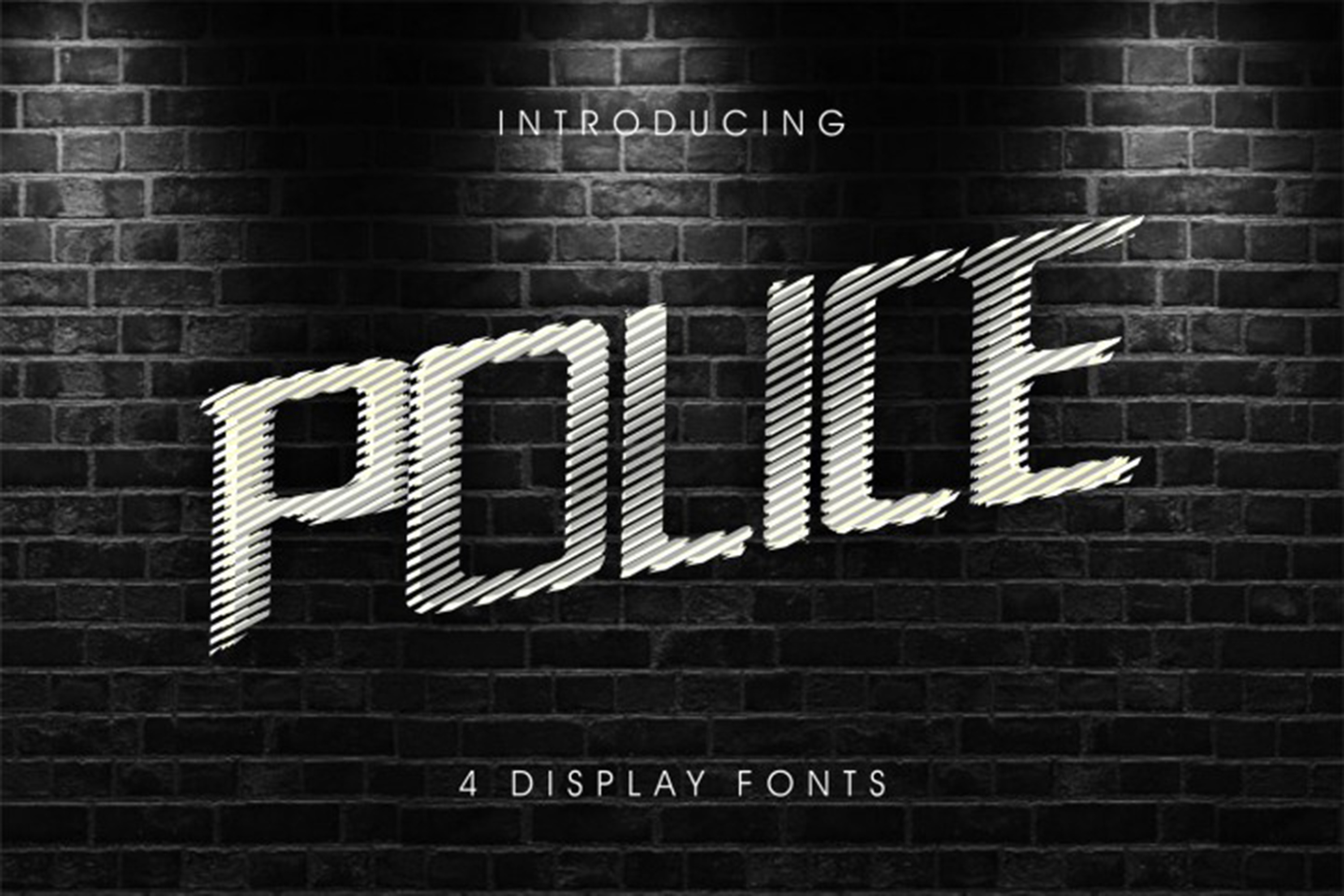
PoliceLineDoNotCross 4 display fonts
PoliceLineDoNotCross
PoliceLineDoNotCross is a delicate font with striped design and possibility to be incorporated into a many variation of use. Smooth and striped body of letters are creating a nice looking visual attractiveness. Created by our professional team of designers this font is applicable in any occasions of your digital art work or text. The font is available in bold and italic variations.